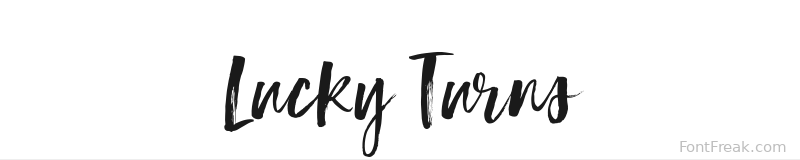
Lucky Turns
About Lucky Turns
Lucky Turns, crafted by BLKBK Fonts, is a delightful handwritten style typeface that captures the essence of spontaneity and creativity. This font features a unique blend of playful curves and dynamic strokes, making it a standout choice for various design projects. The visual characteristics of Lucky Turns include medium stroke weight and moderate contrast, which lend an inviting and approachable feel to the text. The slightly irregular spacing between letters adds to its charm, evoking a sense of casual elegance that is both engaging and easy to read.
This font is particularly well-suited for a range of applications. It shines in wedding invitations, where its whimsical nature can enhance the romantic theme. Additionally, Lucky Turns is perfect for restaurant menus, providing a warm and welcoming atmosphere that draws customers in. Graphic designers will find it invaluable for crafting eye-catching movie posters, as the font’s dynamic flair can effectively capture attention. Content creators can also leverage its unique appeal for social media graphics, ensuring their posts stand out in crowded feeds.
What sets Lucky Turns apart is its perfect blend of elegance and playfulness. This font embodies a lively spirit that invites creativity while maintaining readability, making it an excellent choice for anyone looking to add a personal touch to their designs. Experience the charm of Lucky Turns font free download and let your projects flourish with its unique flair.